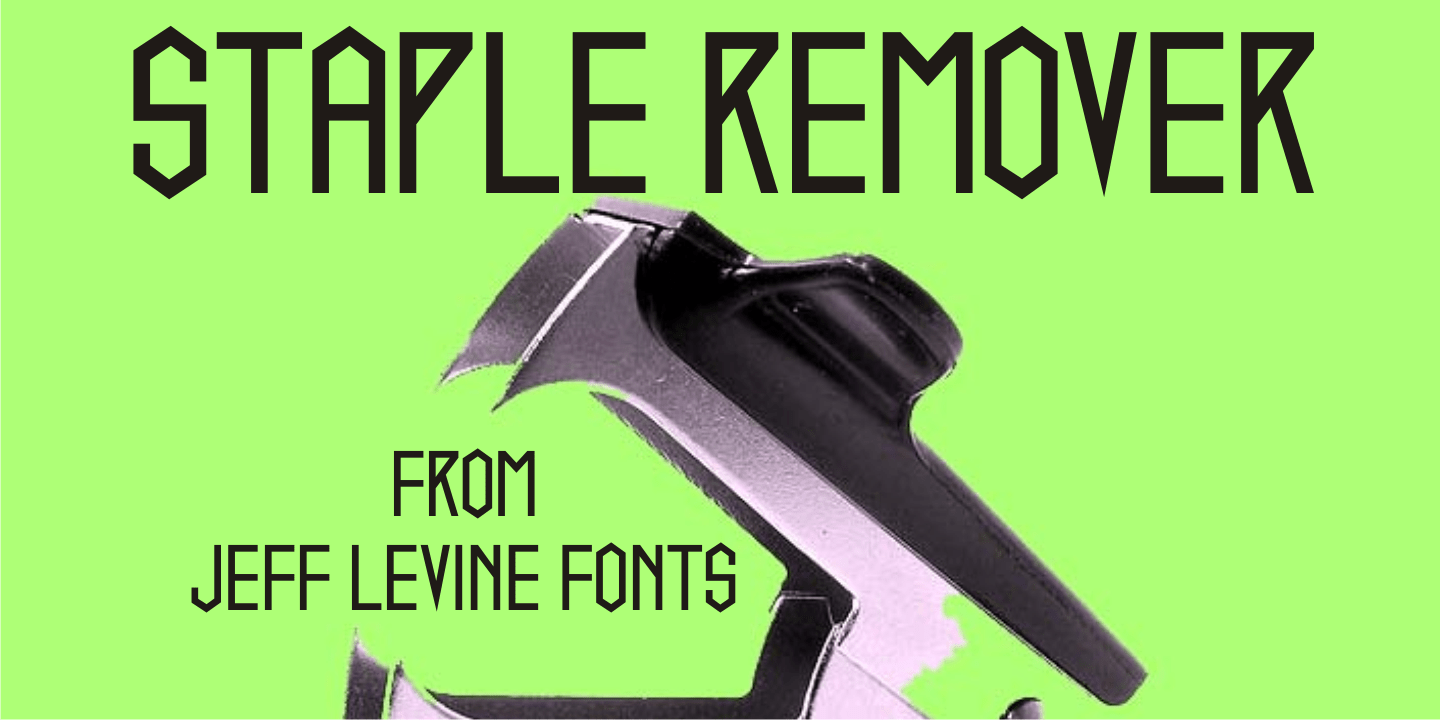
Staple Remover
Hand lettering on the packaging for an Arrow "Commander" Staple Remover seen in an online auction is the inspiration for the unusual and angular typeface comprising Staple Remover JNL.
The Art Deco era of the 1930s and 1940s offers many wonderful examples of stylized and experimental lettering, and this, by far is one of the more eclectic styles of the time.